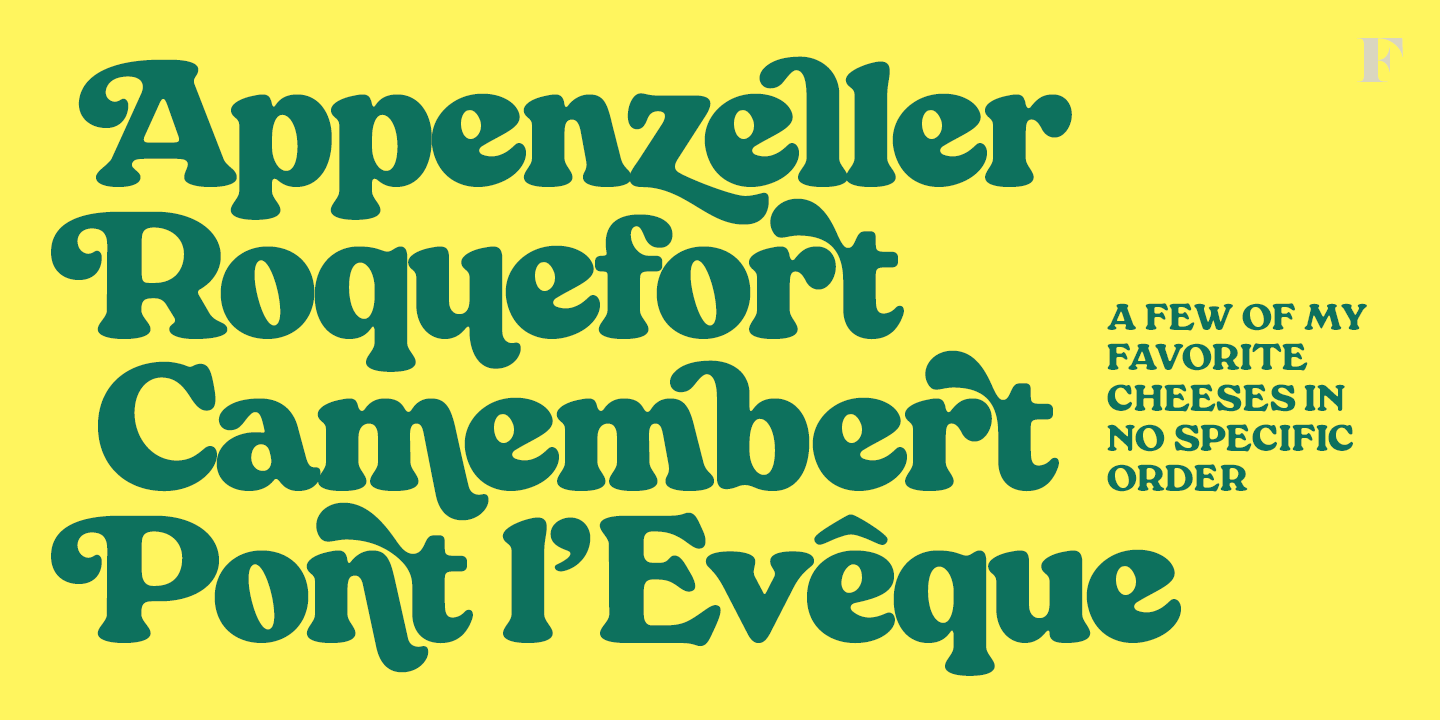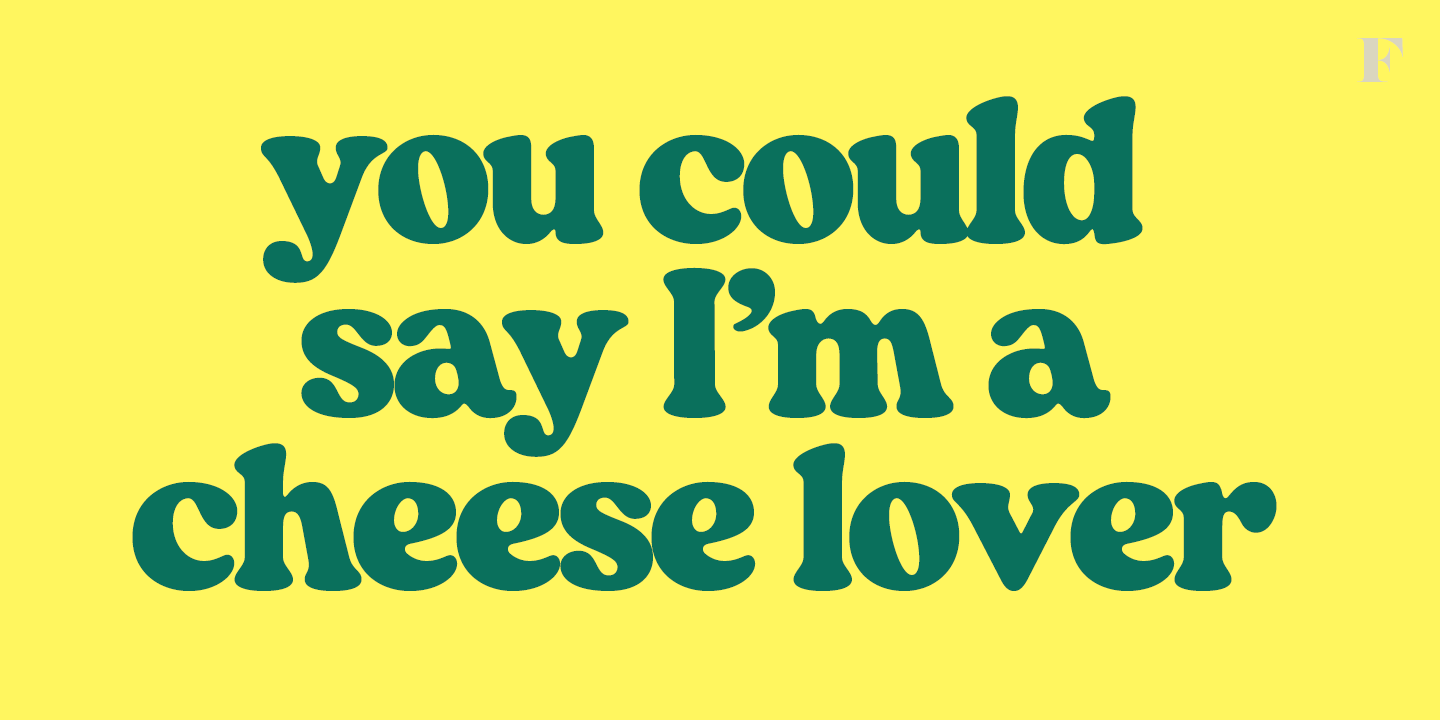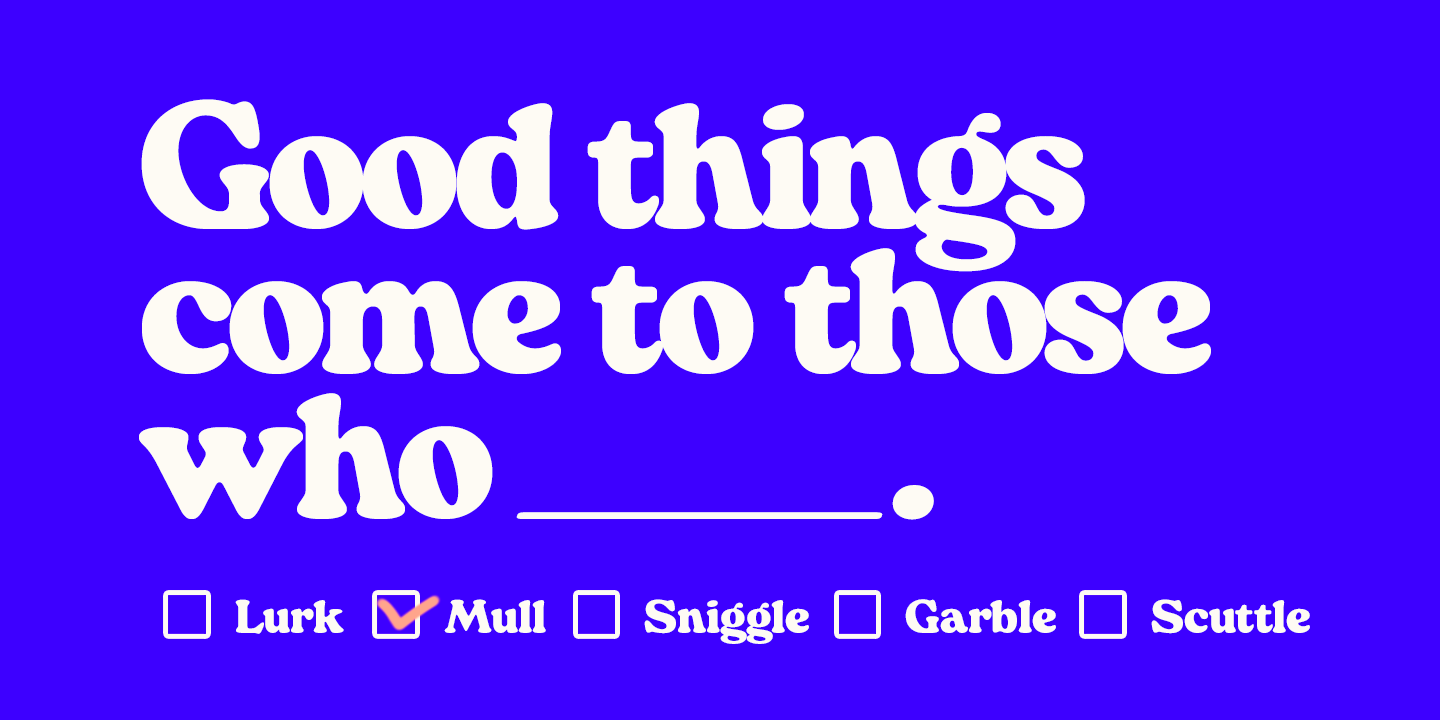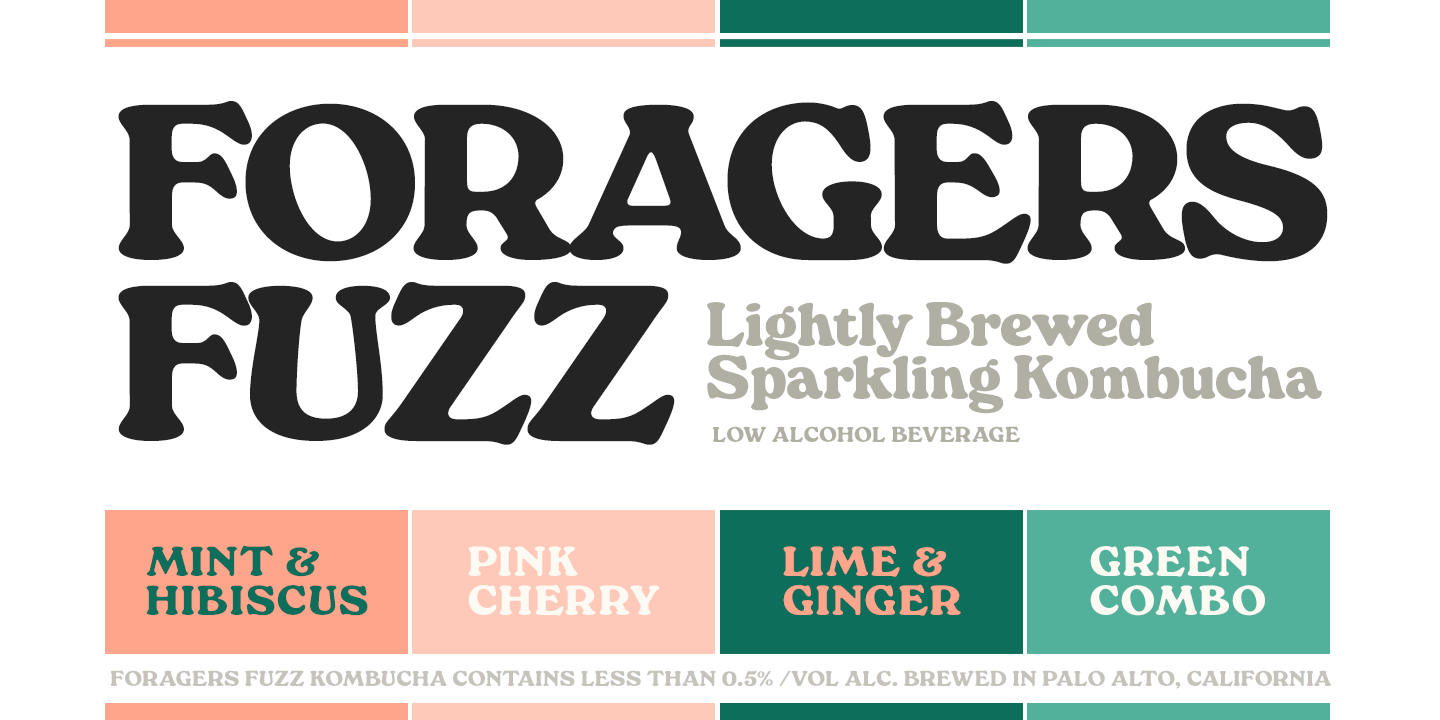
About Manchego
What do you get when you mix iconic Cooper Black from 1922 with an even older font, equally iconic Windsor from 1905? Well of course, you get Manchego! Manchego combines the best of both: the plump features and serifs from Cooper with seriously bold…